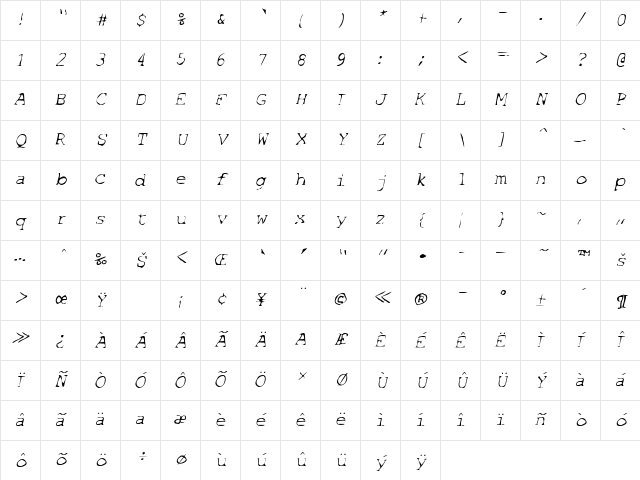
Complete SF Espionage Light Oblique glyph index. Displaying only characters natively supported by SF Espionage Light Oblique font.
SF Espionage Light is a composed and adaptable typeface that performs quietly and consistently across a wide range of design contexts. The slanted form adds forward momentum and visual energy. Its slender proportions lend an understated elegance to any composition.